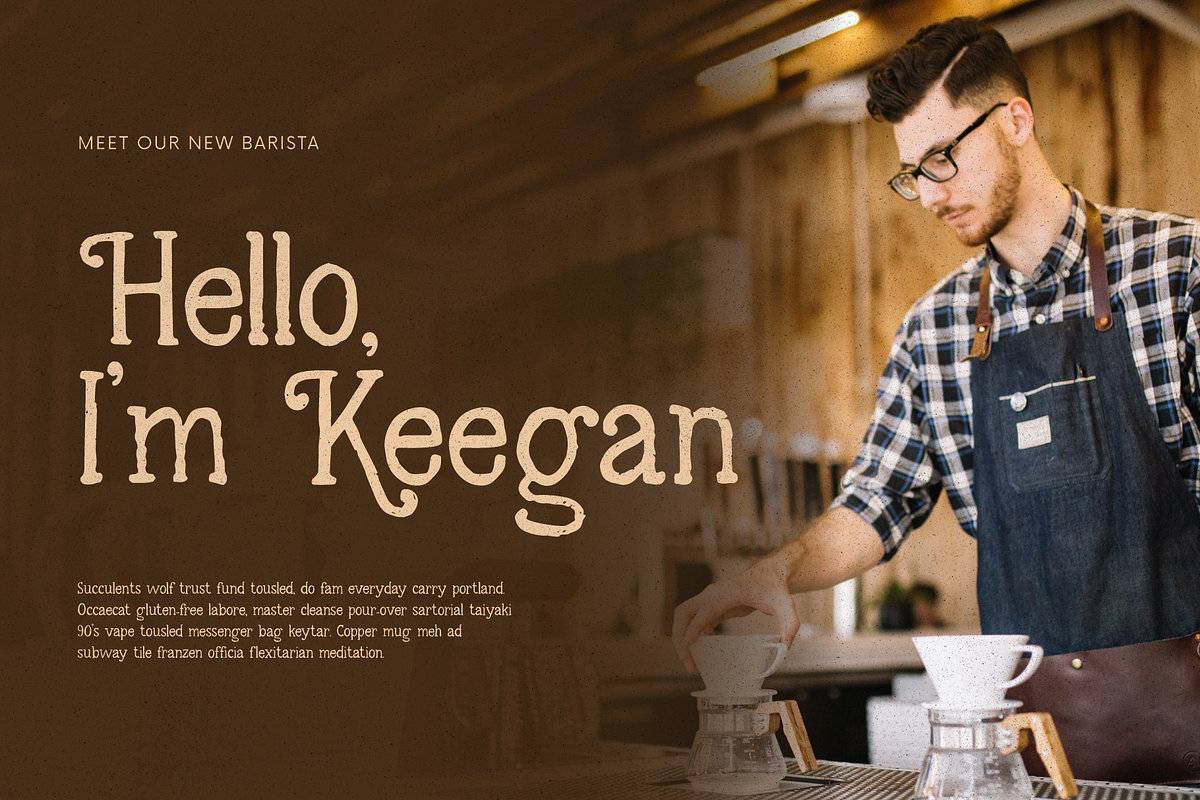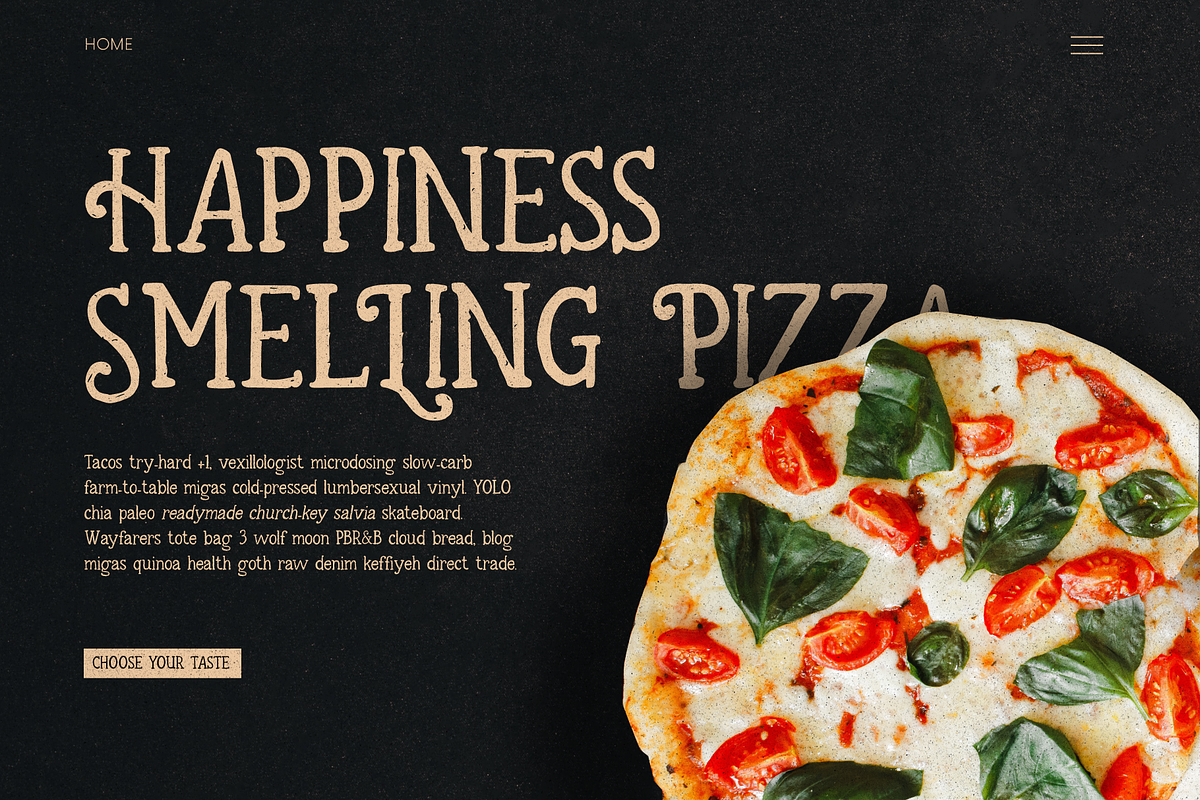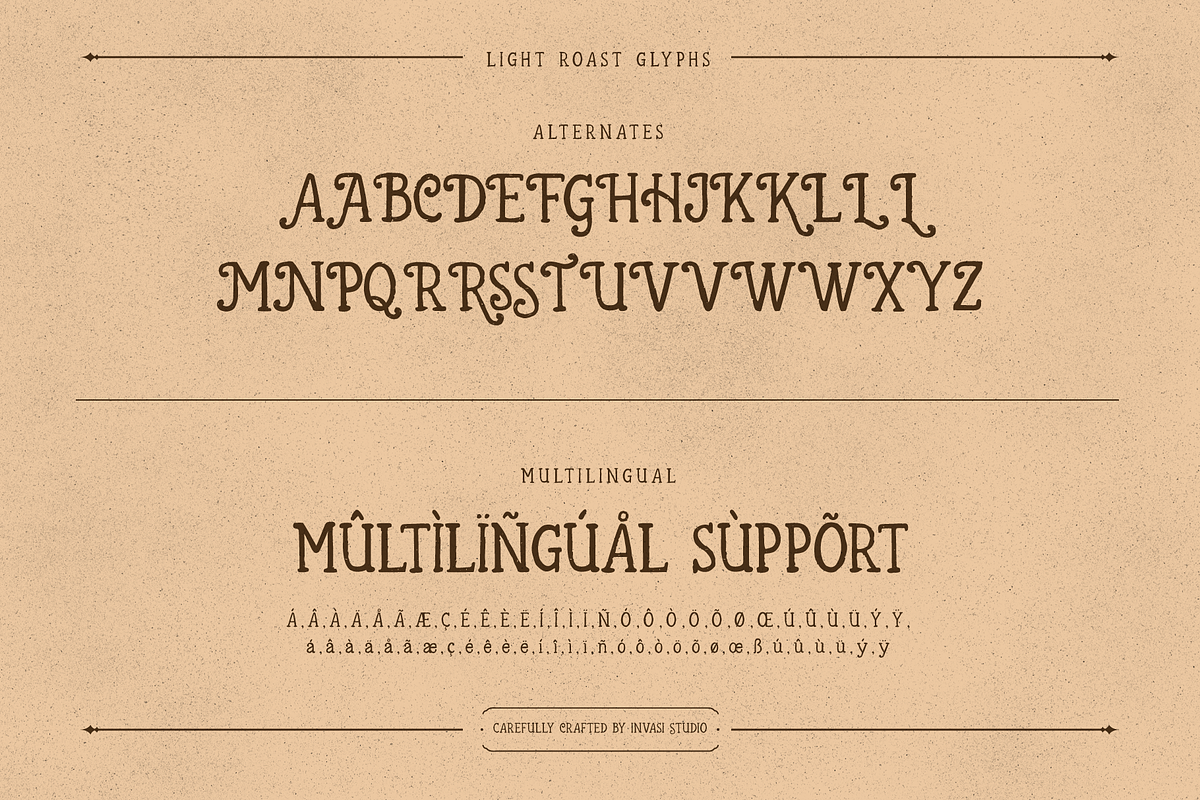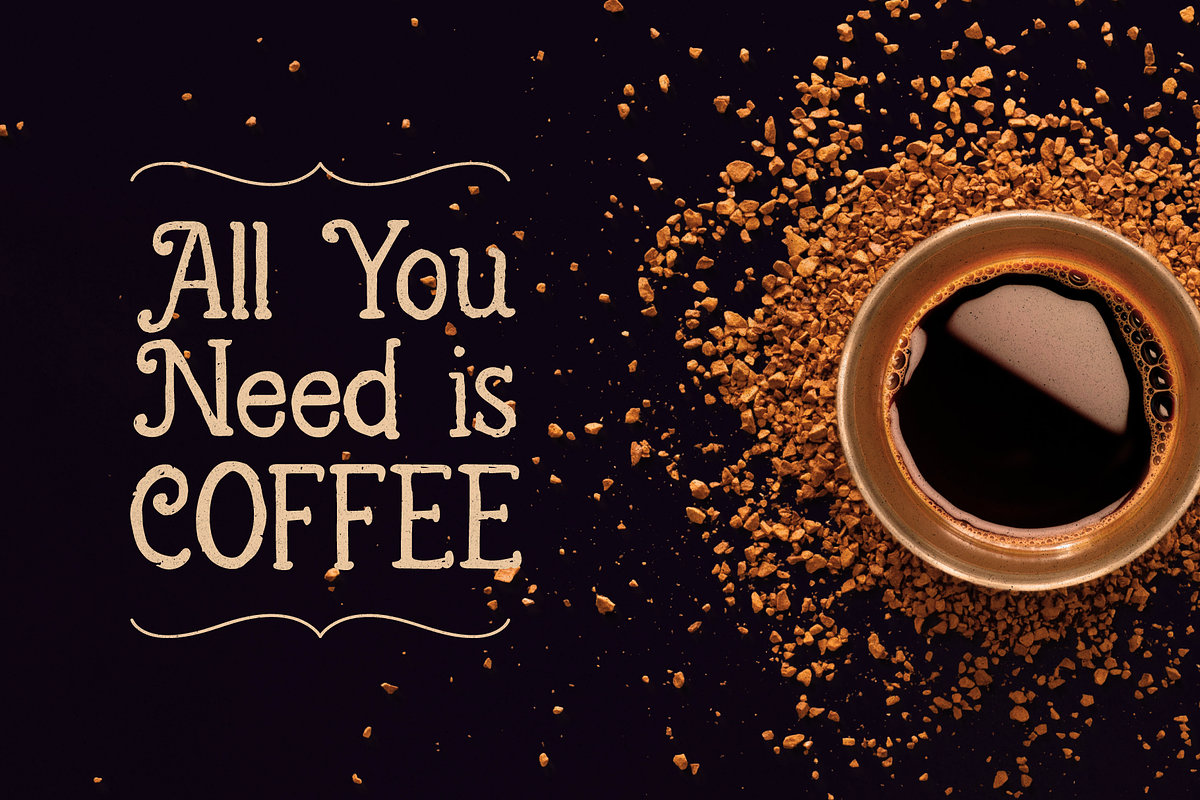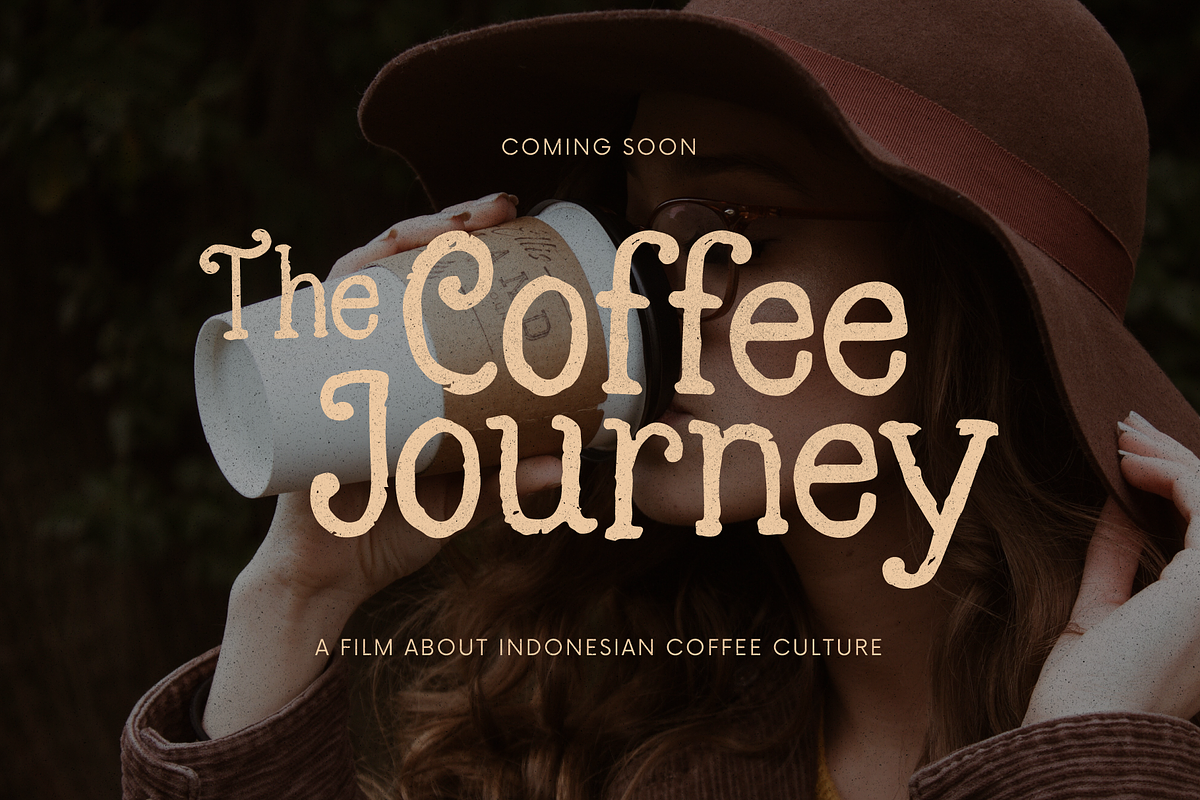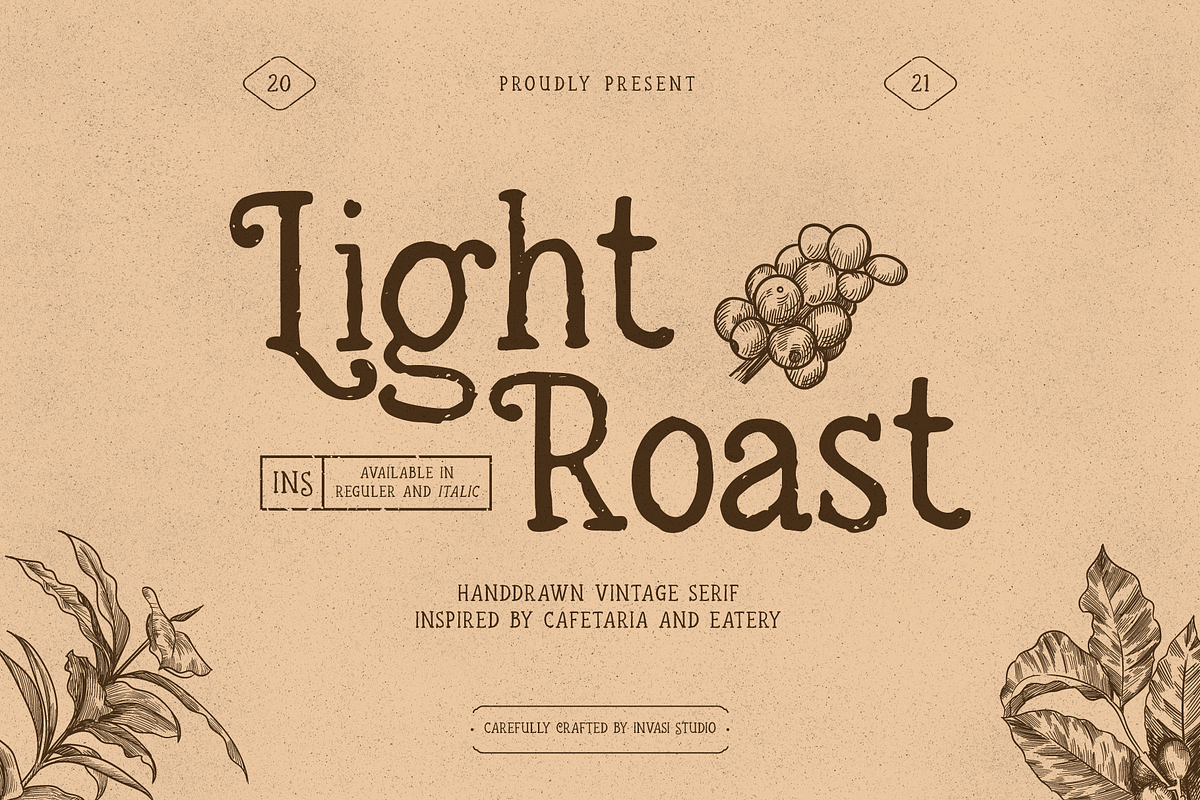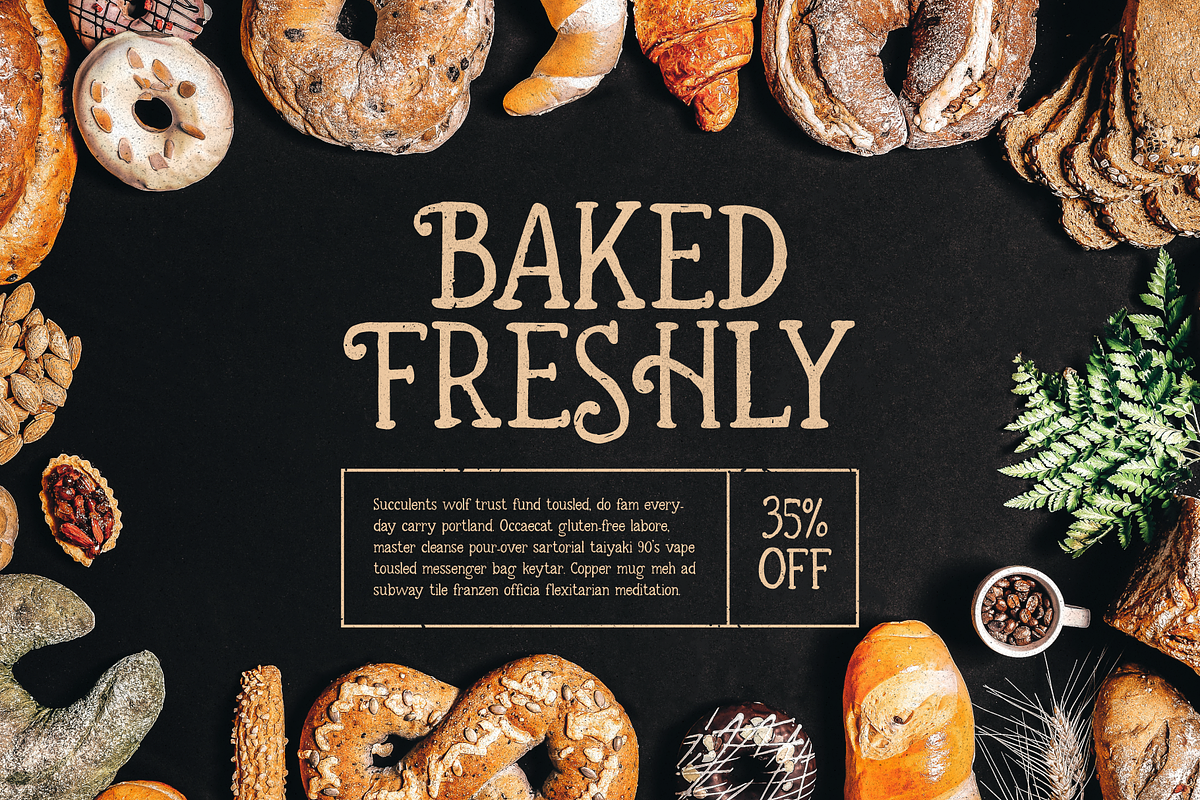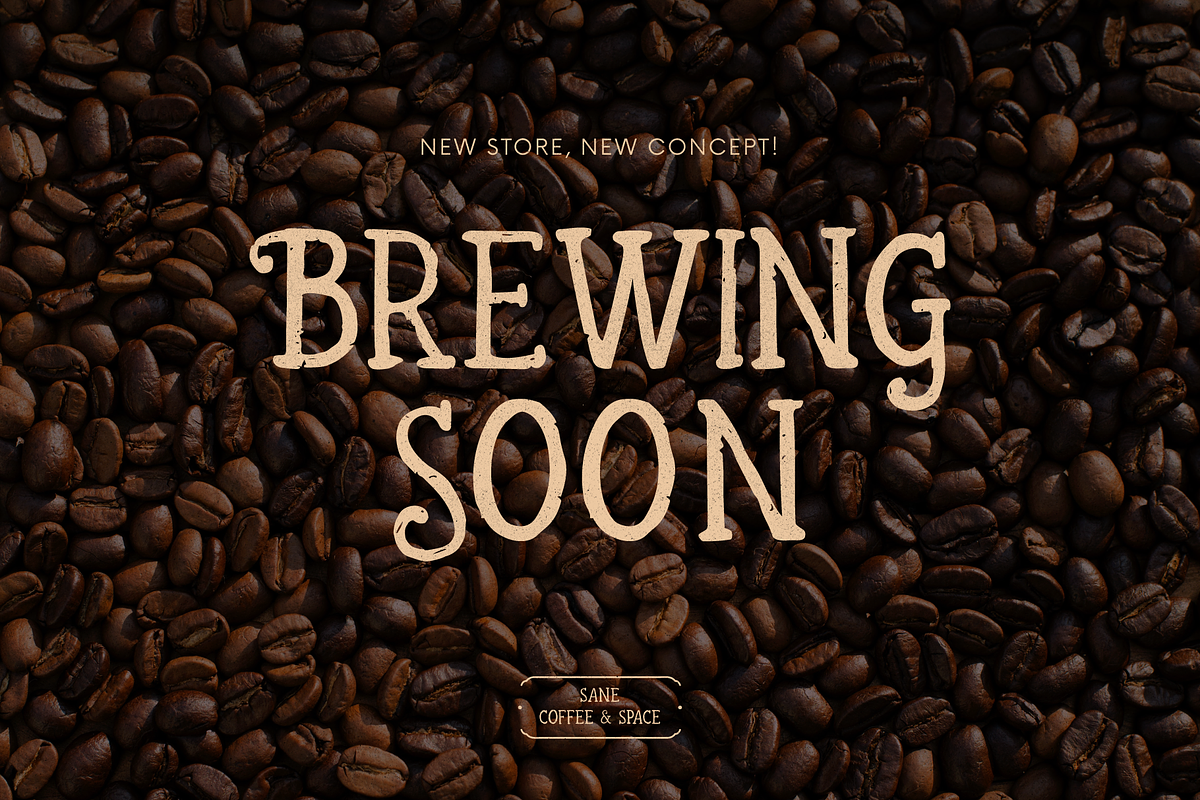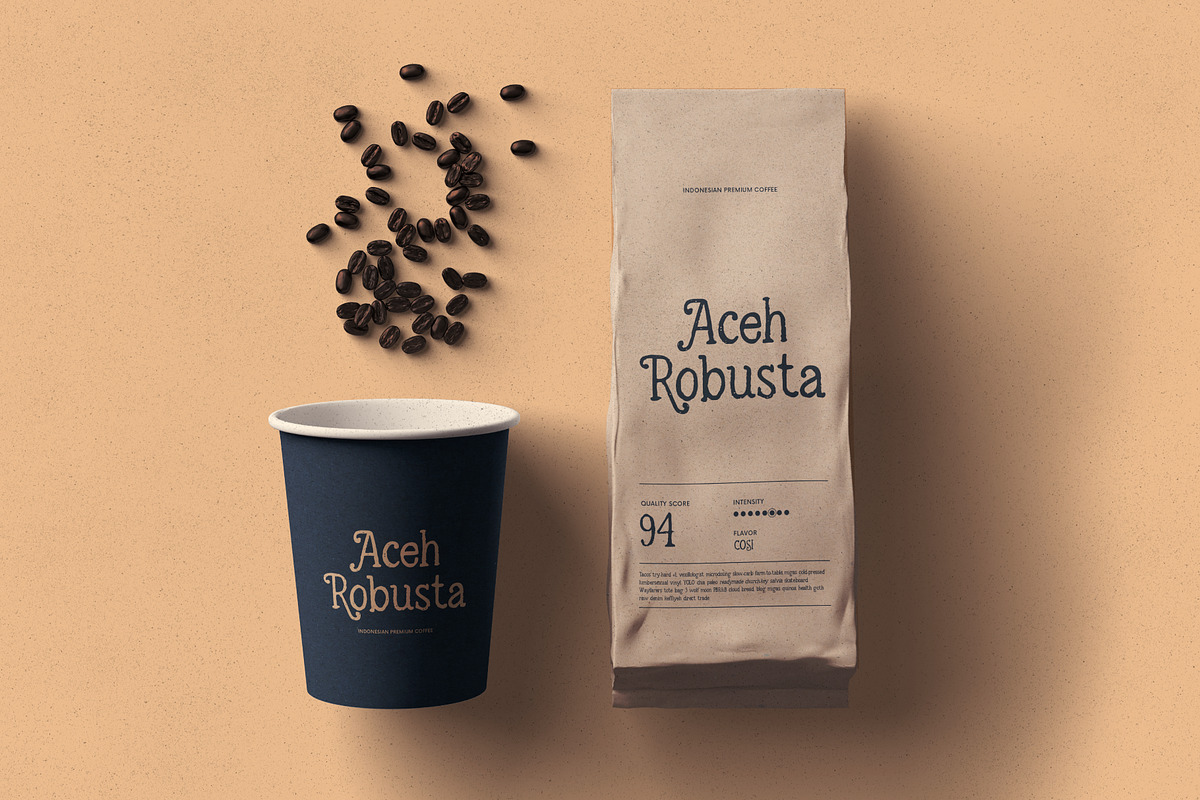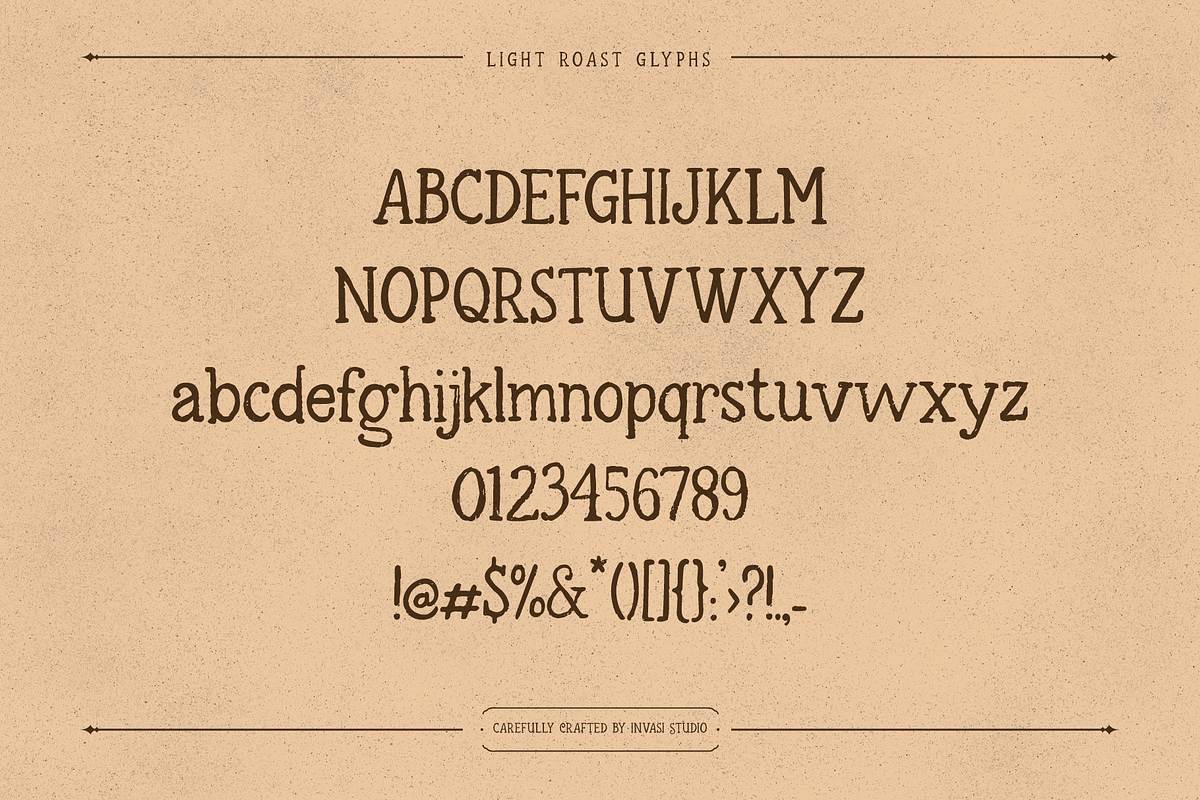
Light Roast | Handdrawn Vintage
The light Roast font is a fun, friendly, and hand-drawn vintage style. Inspired by the cafeteria and eatery vintage era, this font is available in regular and italic font. It can easily be matched to an incredibly large set of projects, so add it to your creative ideas and notice how it makes them stand out! This font is perfect for headings, flyers, greeting cards, product packaging, book cover, printed quotes, logotype, album covers.
- Multilanguage